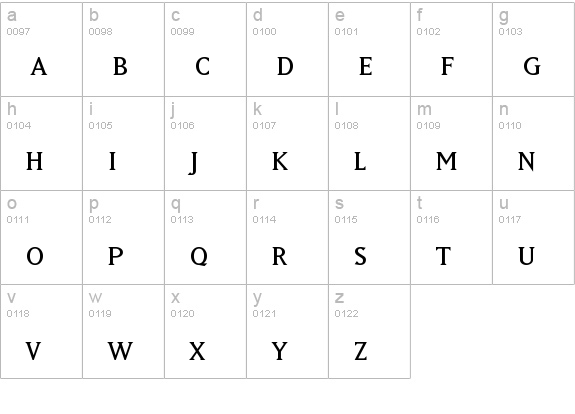
MatrixBookSmallCaps Regular Font Details
MatrixBookSmallCaps Regular is the standard, neutral variant in the MatrixBookSmallCaps typeface family \xE2\x80\x94 well suited to general body text, paragraphs, and standard typographic work.
MatrixBookSmallCaps Regular font is a versatile and elegant typeface that offers a sophisticated touch to any design project. With its sleek small caps style and clean lines, this font is perfect for conveying a sense of professionalism and modernity. The free version of MatrixBookSmallCaps Regular can be downloaded at FontsMarket.com, allowing users to access this high-quality font for their personal and commercial projects. Whether used in print materials, digital designs, or branding elements, MatrixBookSmallCaps Regular is sure to make a bold statement with its timeless appeal. Elevate your typography game with the free download of MatrixBookSmallCaps Regular font today!